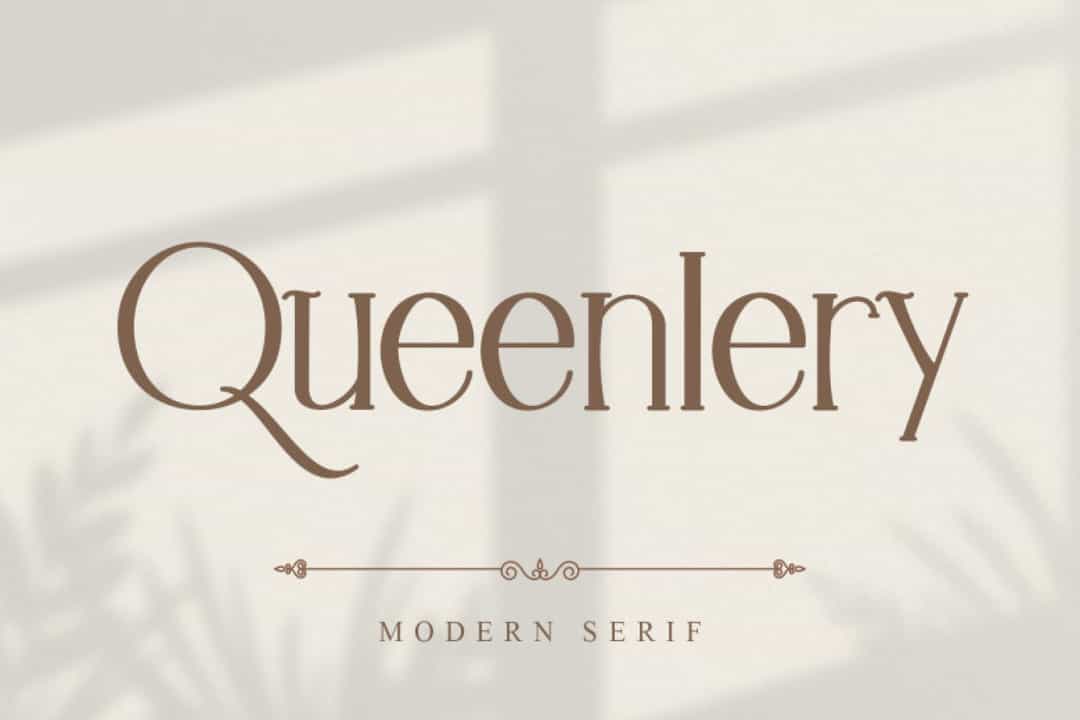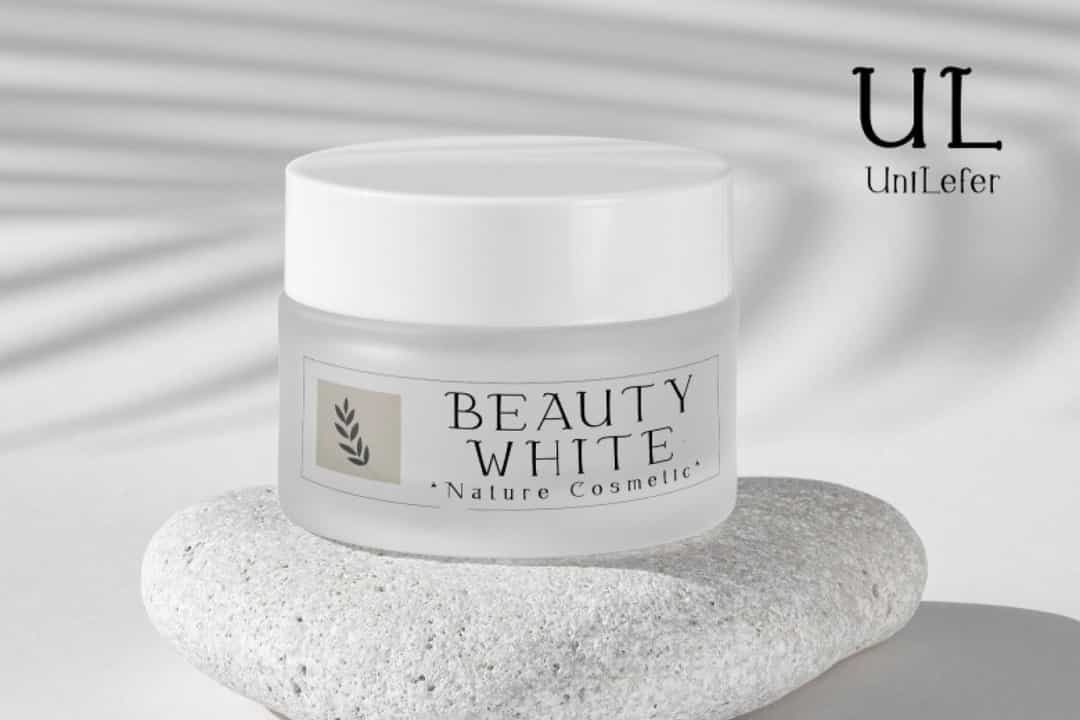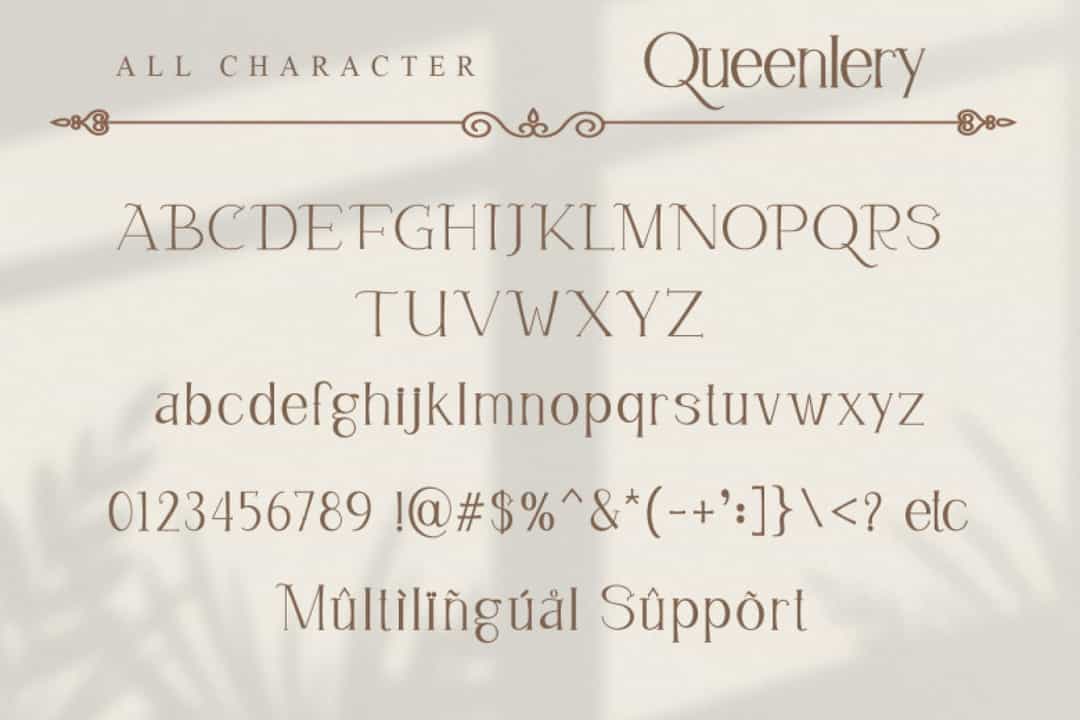
Queenlery is an elegant serif font with an eye-catching style. Be amazed by its gorgeous charm as you use this font to design stunning wedding invitations, stationary art projects, tweets on social networks and much more! Queenlery will captivate and charm.